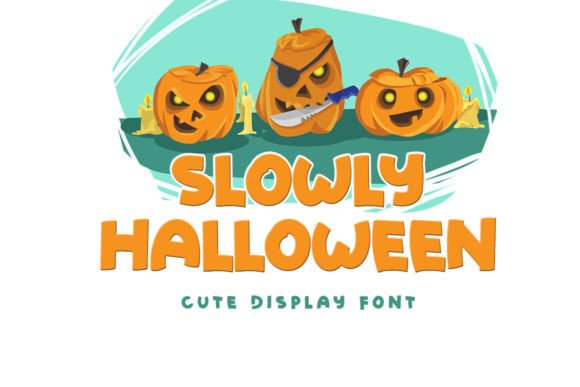
Slowly Halloween: A Unique Display Font
Imagine a typeface that instantly captures the eerie charm of autumn while maintaining the crisp readability required for professional projects. Slowly Halloween is not just another seasonal novelty; it is a masterfully designed display font engineered to elevate your creative ideas to their highest potential. For graphic designers and brand strategists, finding a typography solution that balances thematic flair with functional versatility is often a challenge, but this asset delivers on both fronts.
In the realm of modern graphic design, typography acts as the voice of your visual communication. When introducing Slowly Halloween into your workflow, you are selecting a tool that brings distinct character to every layout. Its unique letterforms are crafted to stand out without sacrificing legibility, making it an ideal choice for brands looking to inject personality into their brand identity during the fall season. Whether you are refreshing a logo or launching a limited-time campaign, the right font can dictate the emotional response of your audience.
Elevating Brand Identity and Marketing
The true power of a premium display font lies in its ability to strengthen branding efforts. During October, consumers are inundated with generic spooky graphics. By utilizing Slowly Halloween, you differentiate your client's message from the noise. This font excels in logo design where a custom, hand-crafted feel is desired but time or budget constraints prevent full custom lettering. It provides an immediate aesthetic upgrade that feels bespoke rather than templated.
Beyond logos, this typeface shines in digital marketing and social media graphics. Scroll-stopping content relies heavily on strong visual hierarchy, and the bold strokes of this font command attention on small mobile screens. When paired with a complementary color palette of deep oranges, purples, or muted neutrals, it creates a cohesive look that enhances user engagement across platforms like Instagram, TikTok, and Facebook.
Versatile Applications Across Media
While often associated with holiday promotions, the utility of Slowly Halloween extends far beyond simple banners. Its structural integrity allows it to perform well in various mediums, ensuring your creative assets remain consistent whether printed or viewed digitally. Consider integrating this font into the following areas:
- Packaging Design: Create eye-catching labels for seasonal products, craft beverages, or limited-edition treats that pop on the shelf.
- Editorial Design: Use it for pull quotes or chapter headers in magazines and zines to break up text and add visual interest.
- Web and UI Design: Implement it in hero sections or call-to-action buttons to guide user behavior without compromising UX design principles.
- Advertising Campaigns: Develop memorable print ads and billboards where scale and impact are paramount.
- Merchandise: Apply it to t-shirts, tote bags, and stickers for retail lines that celebrate the spooky season.
Best Practices for Professional Implementation
To maximize the impact of Slowly Halloween, designers must approach its usage with strategic intent. A common pitfall in typography is overuse; display fonts are most effective when used sparingly to highlight key information. Reserve this font for headlines, titles, and short phrases where its unique details can be appreciated. For body copy, pair it with a clean, neutral sans-serif to maintain readability and ensure a balanced visual design.
Consistency is key to a professional presentation. When building a design workflow around this asset, establish clear guidelines on sizing, spacing, and color combinations. Ensure that the font scales well across different devices and print sizes. Testing your layouts for accessibility is also crucial; verify that contrast ratios meet standards so that your message reaches the widest possible audience. By treating this font as a core component of your creative projects rather than an afterthought, you ensure a polished final result.
Ultimately, the success of any design trend depends on how well it serves the communication goal. Slowly Halloween offers a rare blend of whimsical style and structural reliability, making it a valuable addition to any designer's toolkit. Thoughtful selection of high-quality creative assets does more than improve aesthetics; it clarifies your message and deepens the connection between your brand and your audience. Embrace tools that inspire confidence and creativity, and watch your visual storytelling reach new heights.